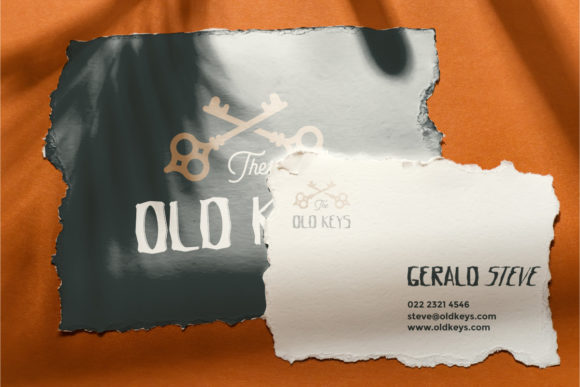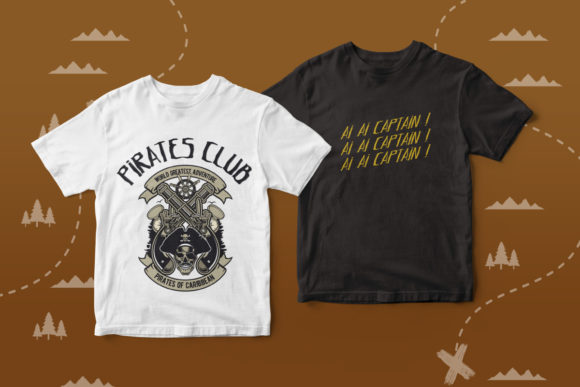
Crumpled Letter Font
Crumpled Letter Font is a cool and adaptable display font. This font is suitable for designs such as t-shirts, sportswear, posters, logos, advertisements, clothing, and more.
Crumpled Letter Font is a cool and adaptable display font. This font is suitable for designs such as t-shirts, sportswear, posters, logos, advertisements, clothing, and more. Whatever the topic, this font will be a great asset to your font collection, as it has the potential to enhance any creation.